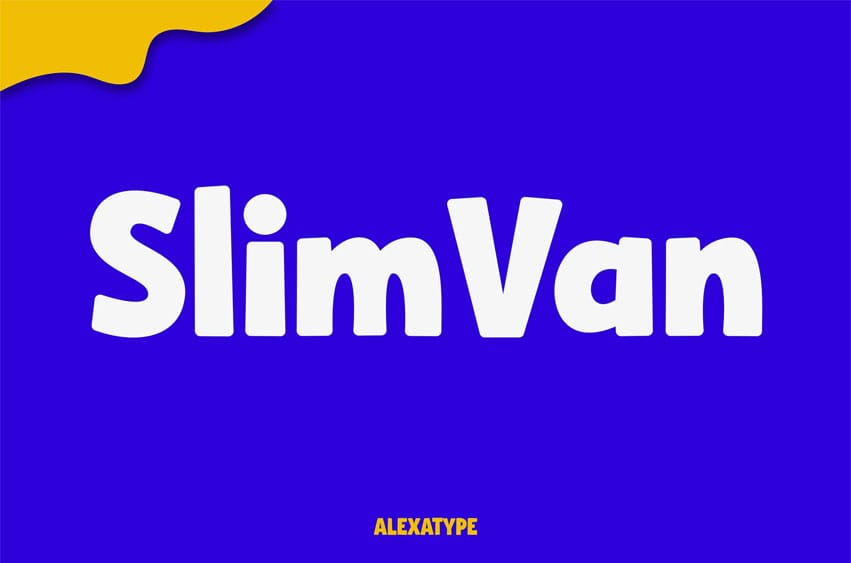
SlimVan Font is a bold, all-caps display font with a strong urban groove and a touch of classroom cheer. It brings energy and clarity to every word, whether you’re building a personal brand, inspiring young learners, or creating products that pop.
Perfectly balanced between street-style confidence and educational friendliness, SlimVan adapts across generations. Use it for YouTube thumbnails, motivational merch, kids’ activity posters, quote walls, fashion drops, and creative campaigns. Its chunky letterforms are easy to read and hard to forget.
Let your message stand out, whether you’re talking to an audience of hustlers—or hilarious 3rd graders.
Key Features
- All-caps font with high readability
- Smooth curves + sharp impact
- Versatile weight and spacing for both bold statements and playful texts
- Great for youth marketing, classroom decor, personal branding, or merch
From streetwear designs and YouTube branding to kids’ activity books, educational prints, fashion quotes, and playful packaging. Get SlimVan today — one font, two worlds, endless possibilities.